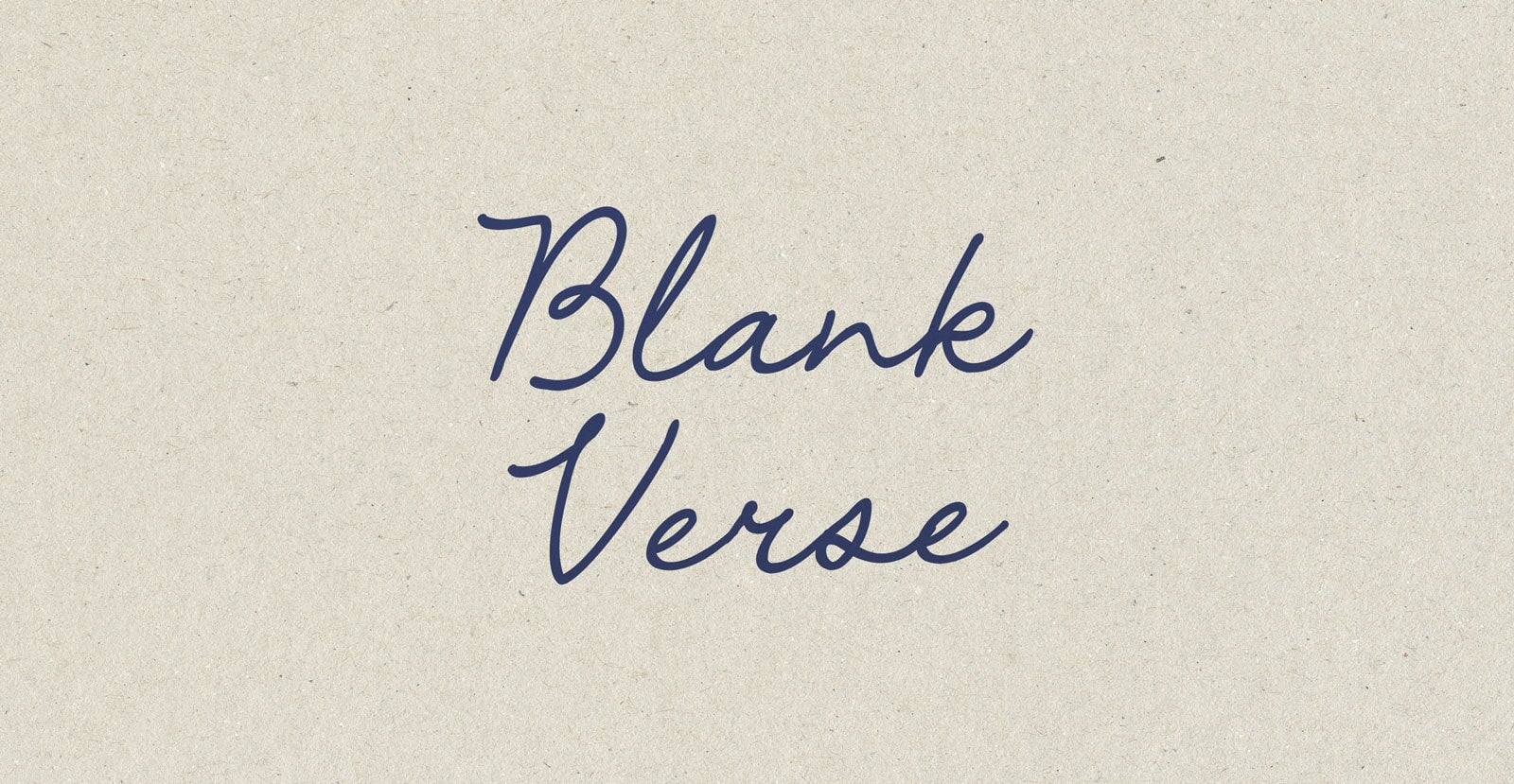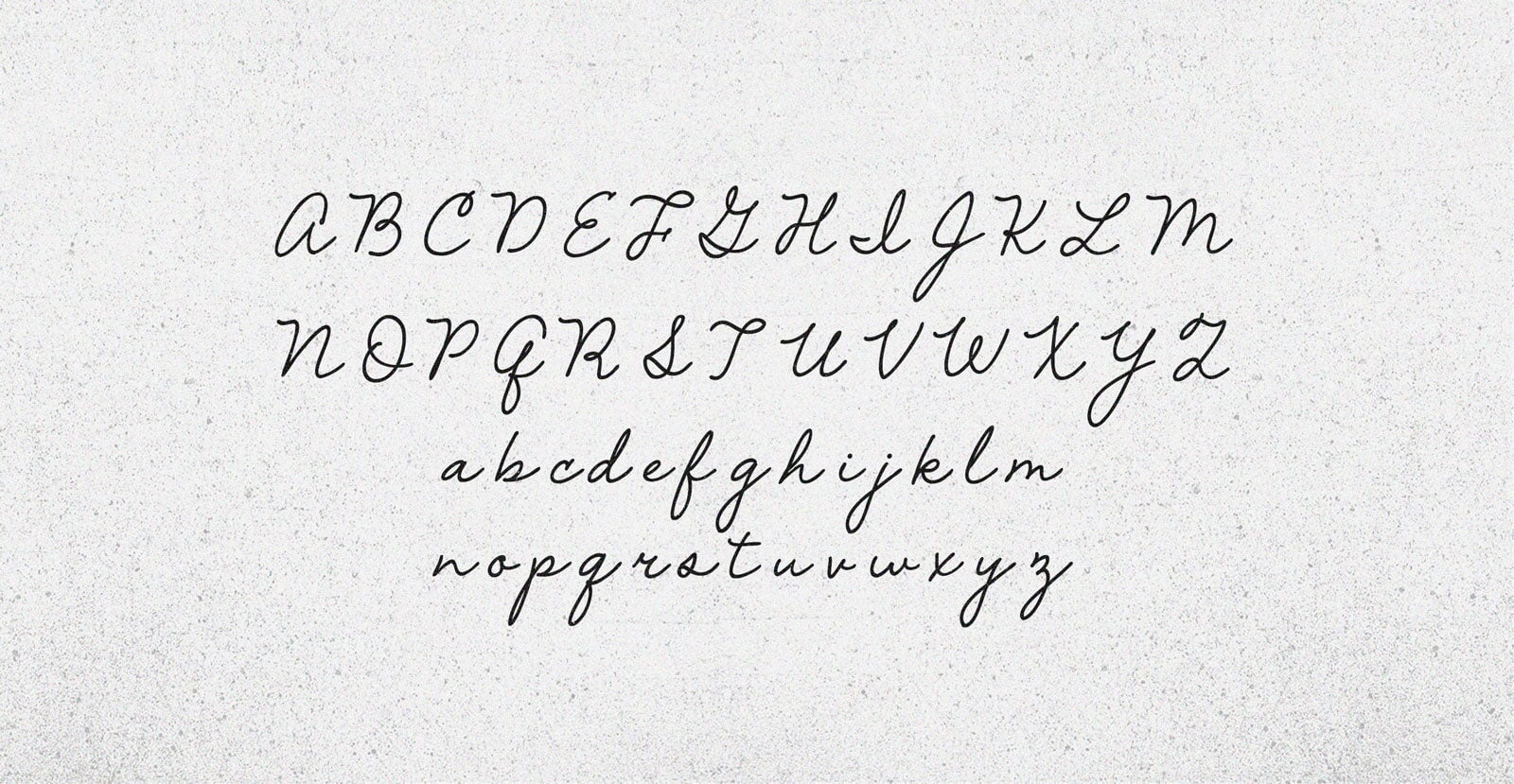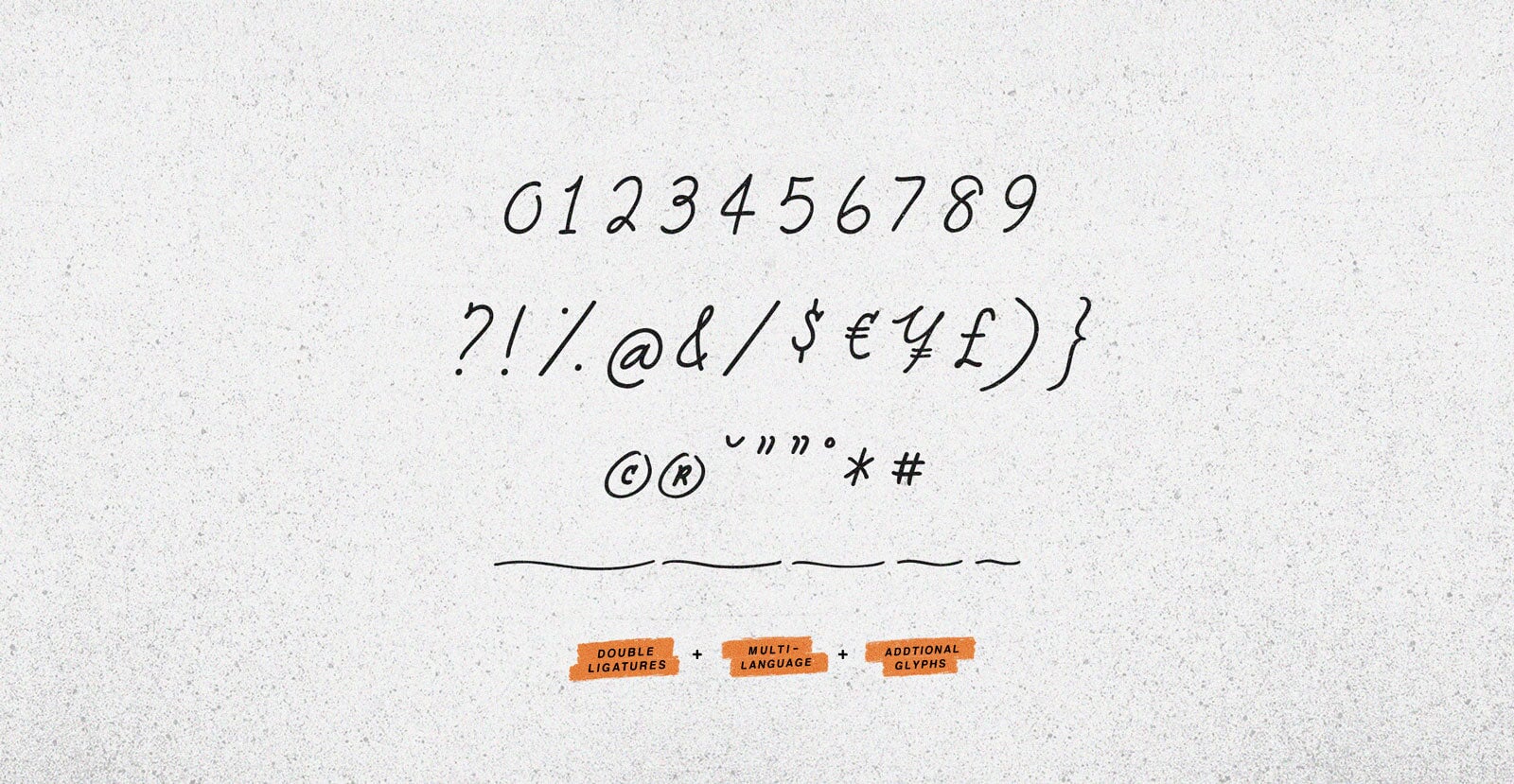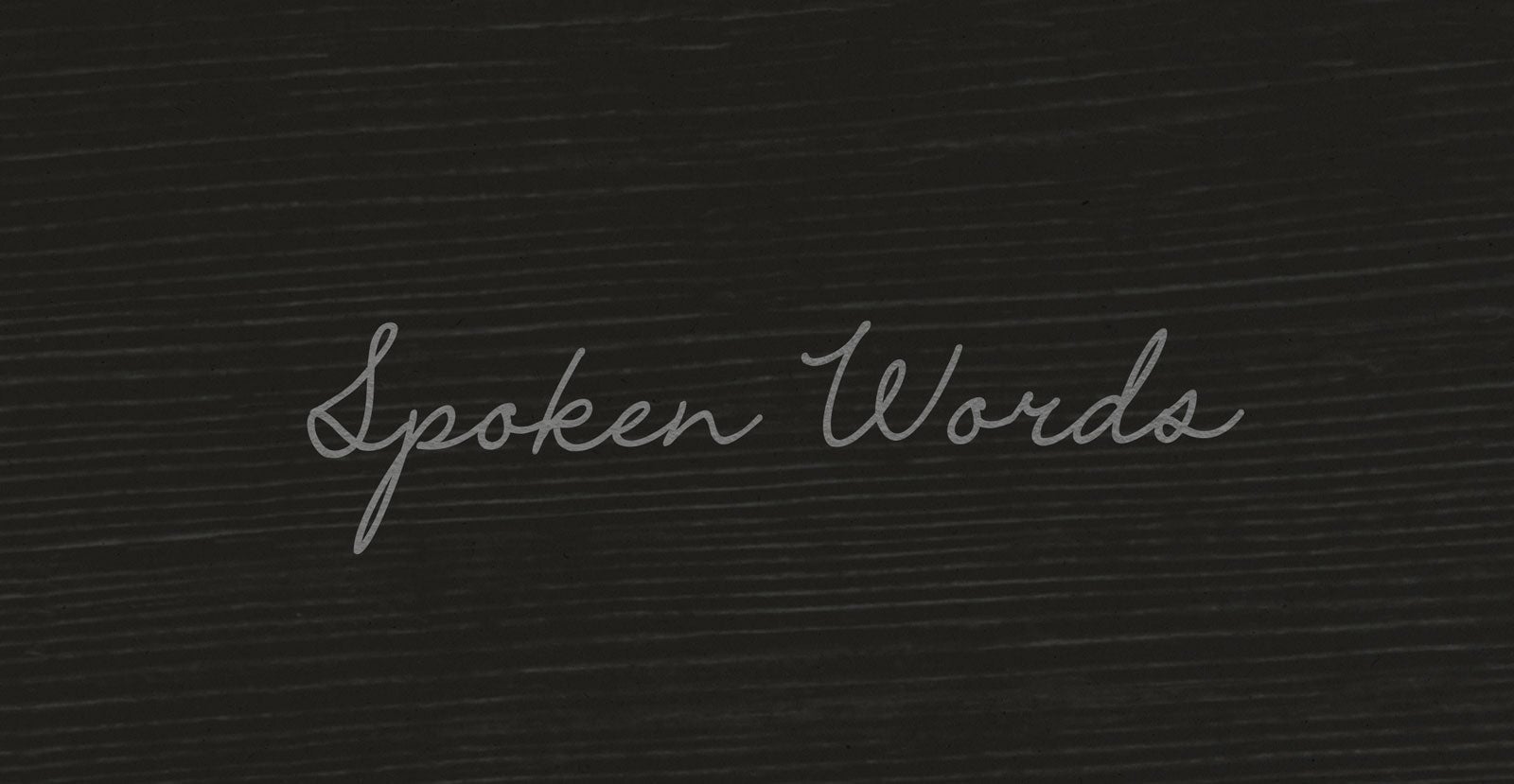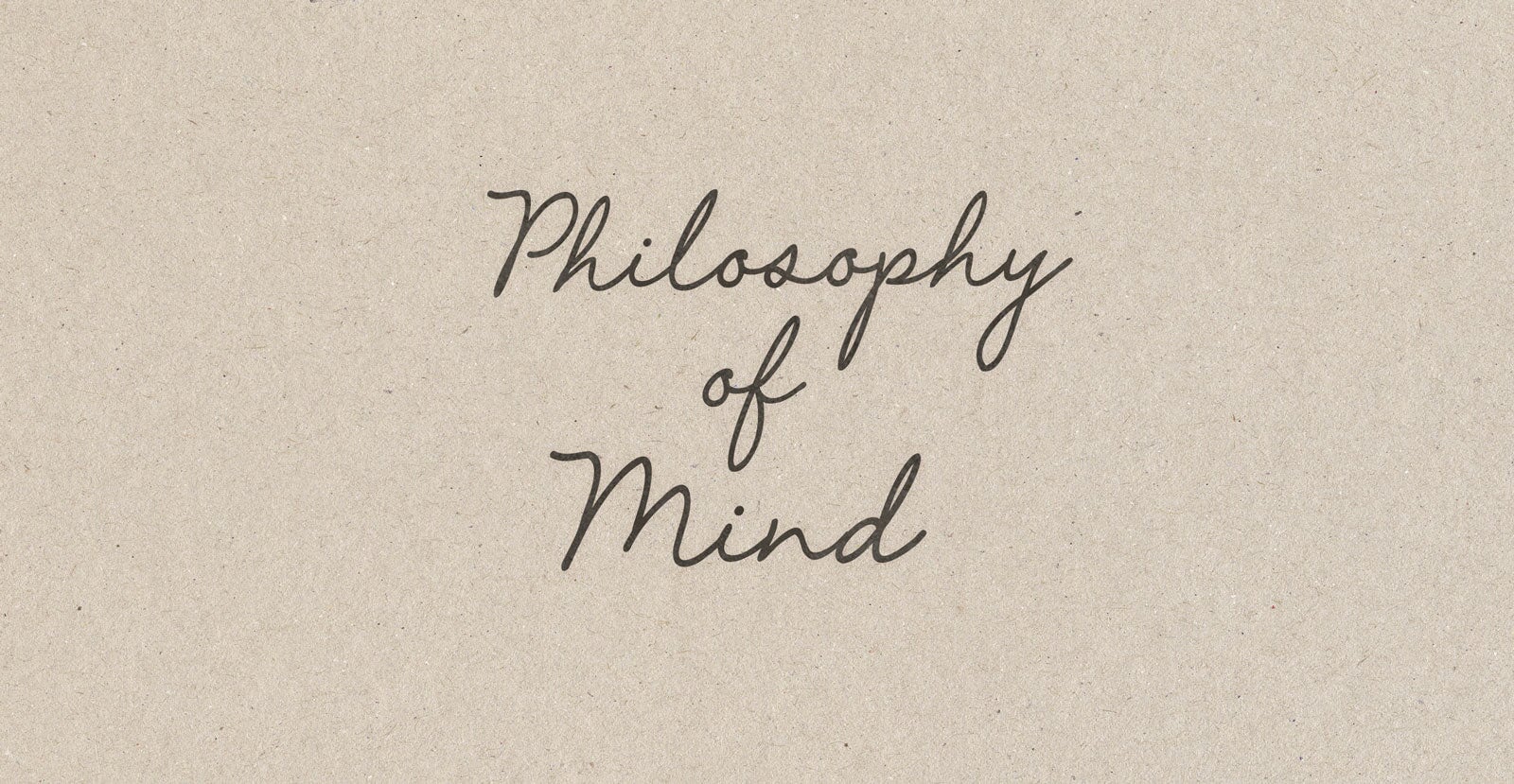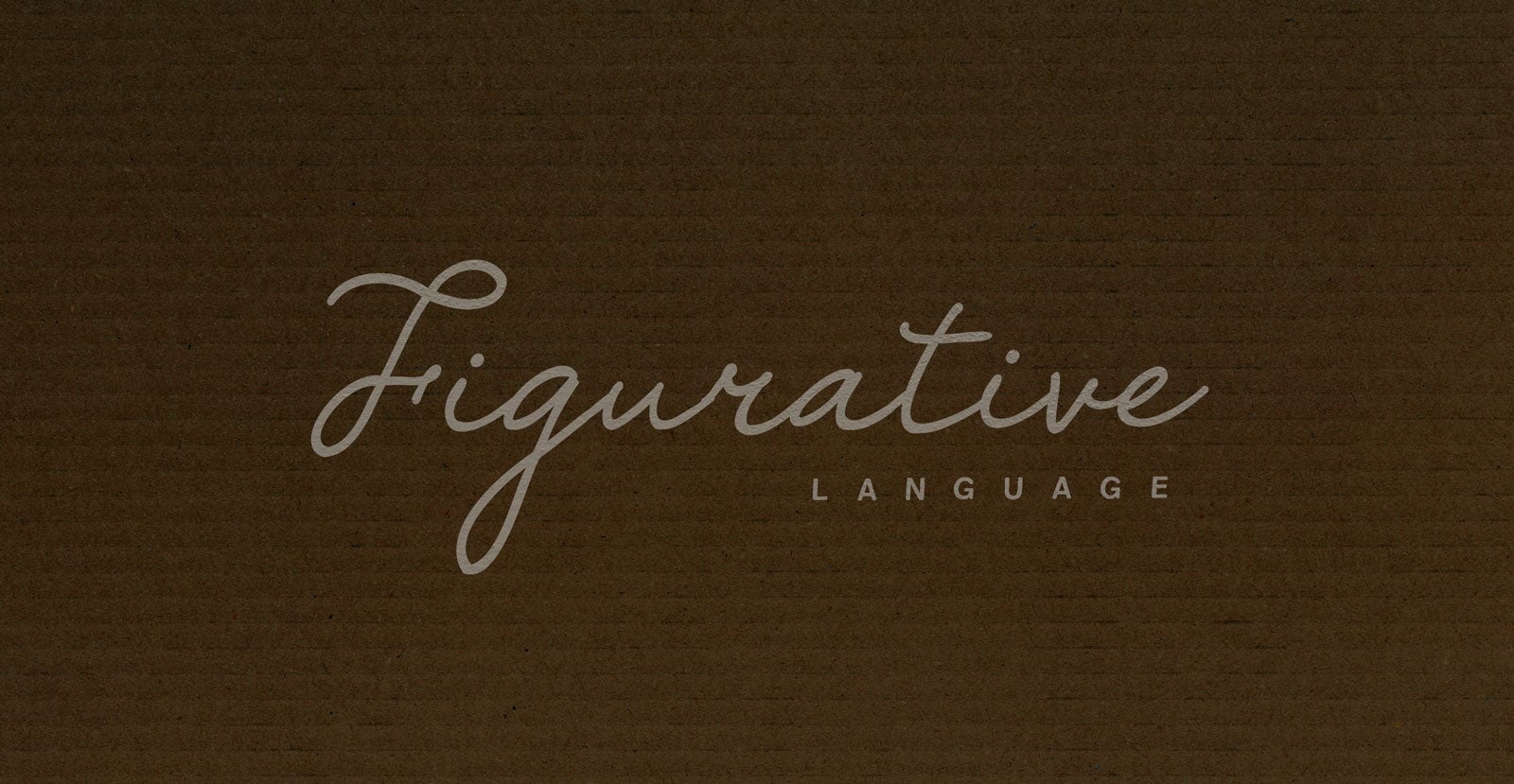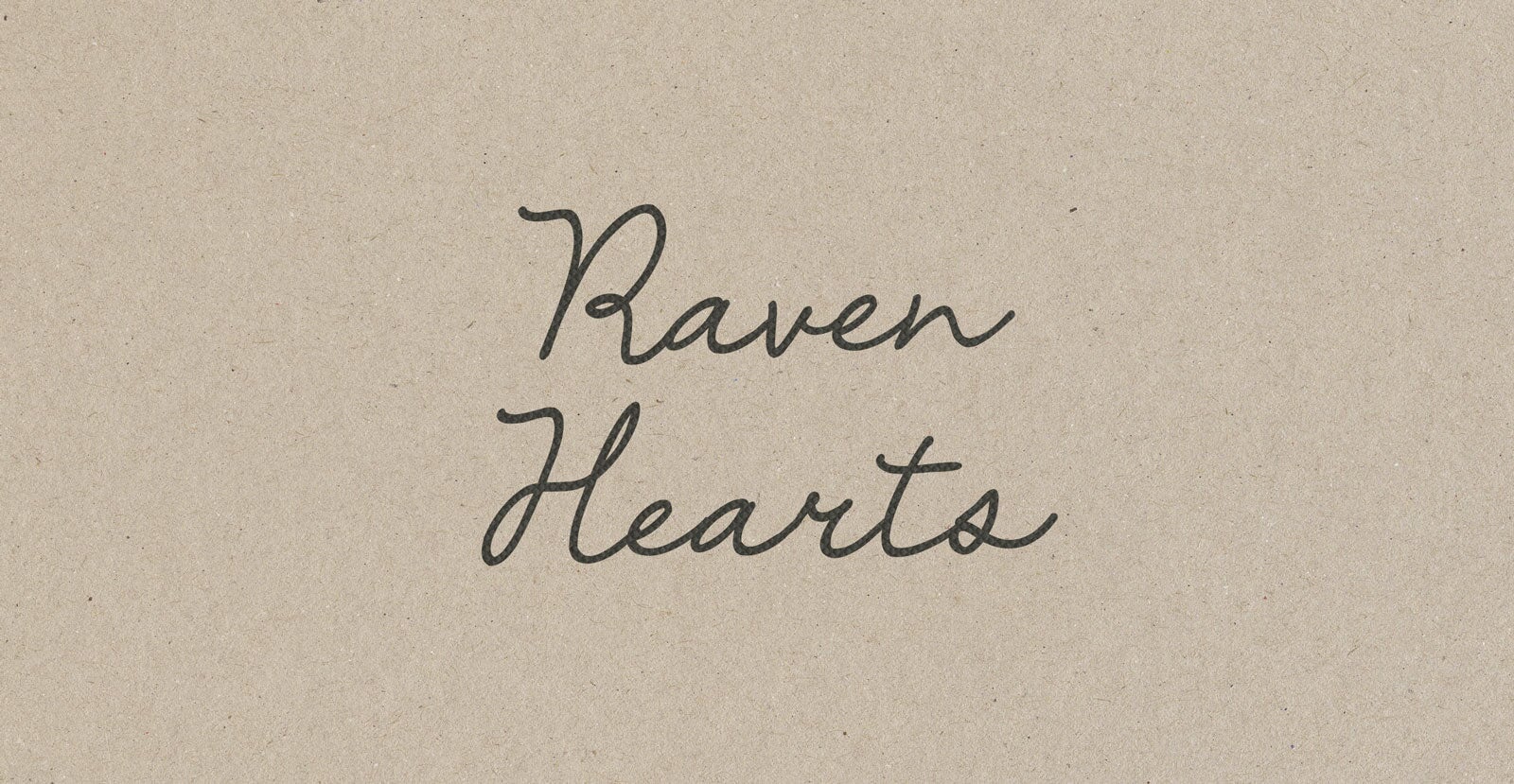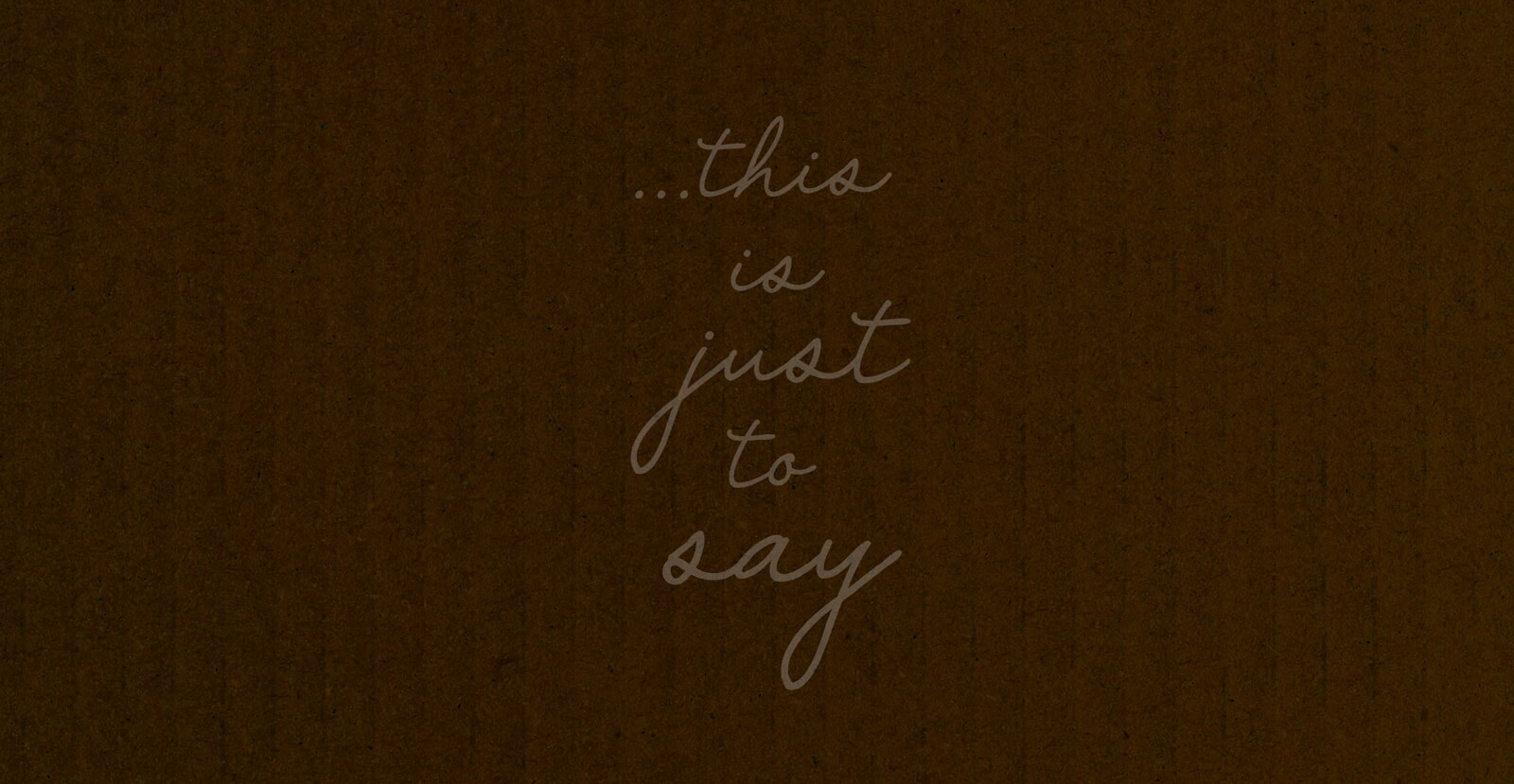
Blank Verse
Handwritten Pen Script Font
Blank Verse holds space with quiet tension—measured, open, and full of intent. It speaks in rhythm without rhyme, letting form follow feeling. Stripped down but not empty, it leaves room for what matters most.